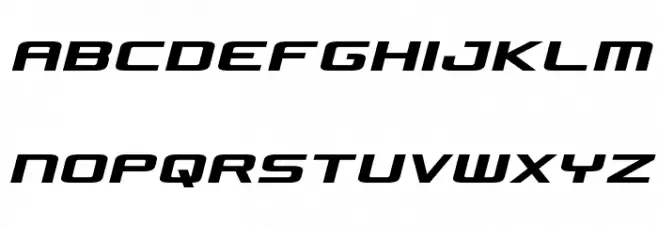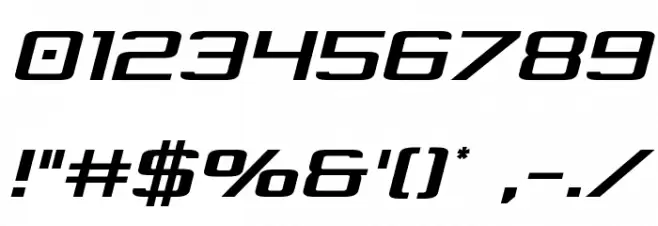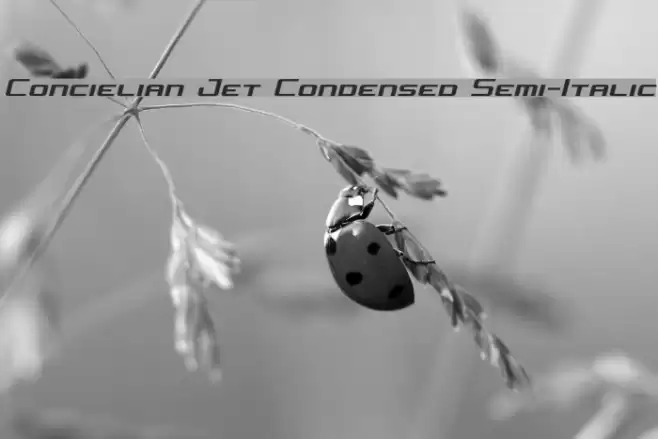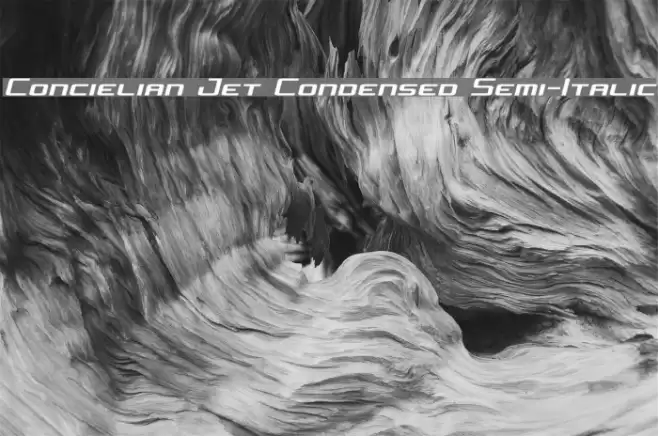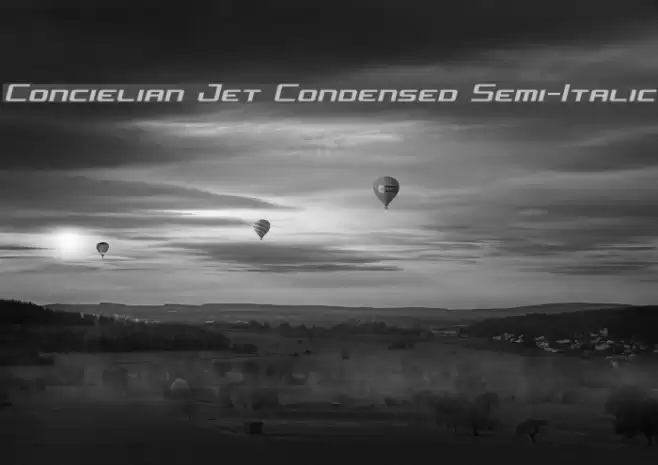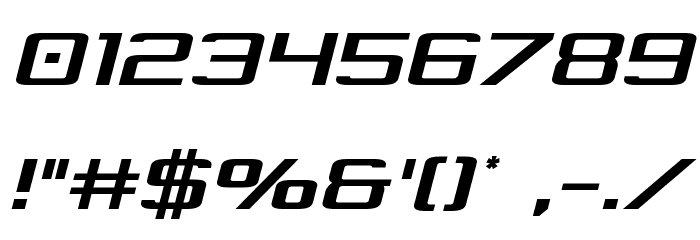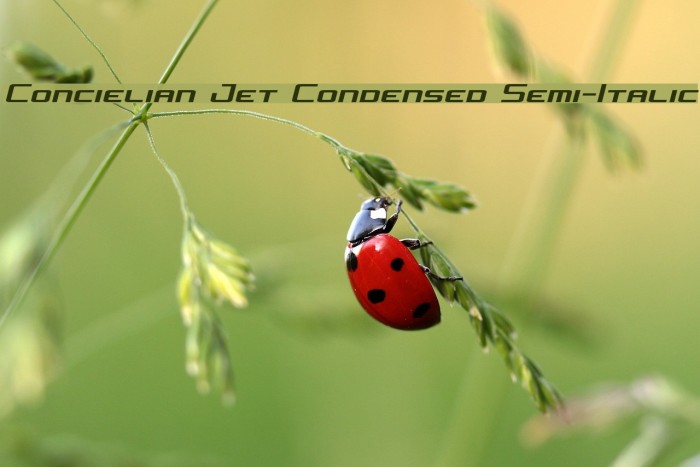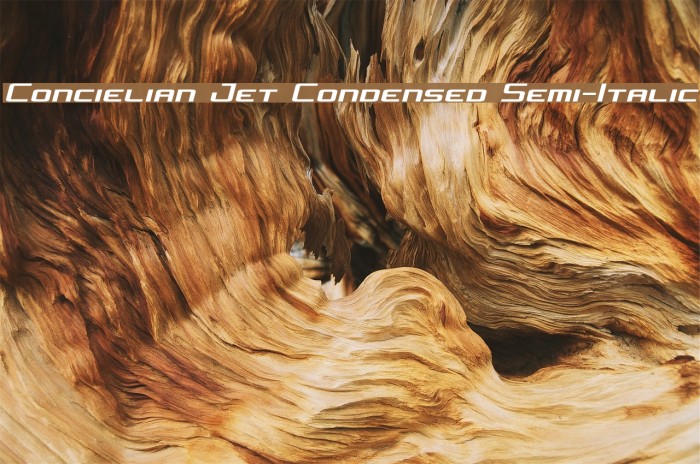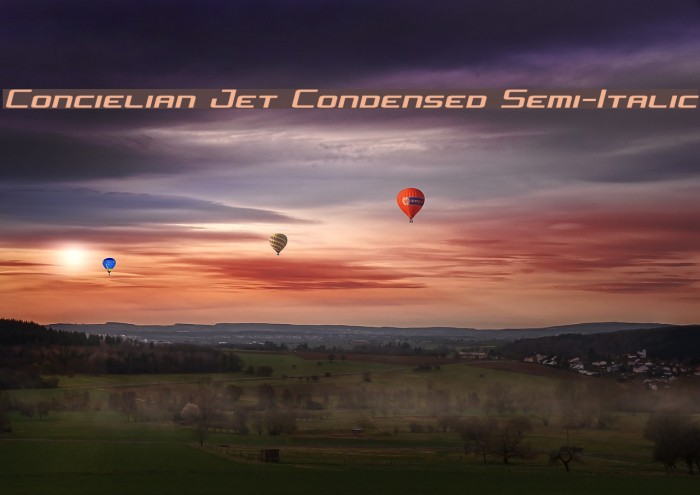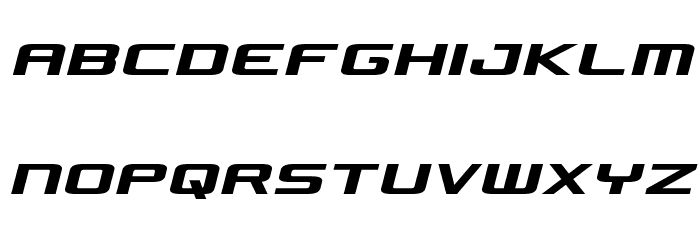
Concielian Jet Condensed Semi-Italic
This font features a sleek, modern design with a condensed and semi-italic style. The characters are slightly slanted, giving a dynamic and forward-moving appearance. The strokes are consistent in weight, providing a uniform look across all characters. The font maintains a clean and professional aesthetic, suitable for various digital and print applications. Its condensed nature allows for efficient use of space, making it ideal for headlines or areas where space is limited. The overall style is contemporary, with a touch of sophistication, making it versatile for different design needs.
A sleek, modern, condensed semi-italic font with a dynamic appearance.
- Proposed Projects: Ideal for tech branding, modern advertising, digital interfaces, and sleek editorial design.
- Width: Condensed
- Use Case: Headlines, Logos, Digital interfaces